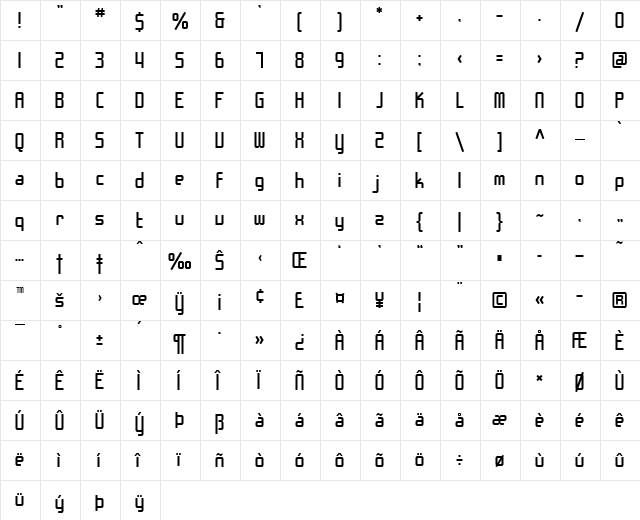
SF Chrome Fenders Regular
| Designer | ShyFonts Type Foundry |
Design Context for SF Chrome Fenders Typeface
SF Chrome Fenders takes a measured approach to typography — its balanced proportions and neutral character make it a reliable workhorse for both digital and print work.